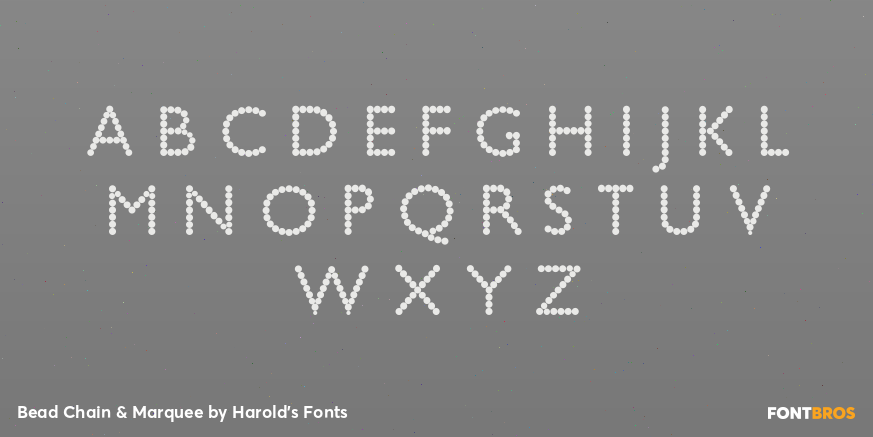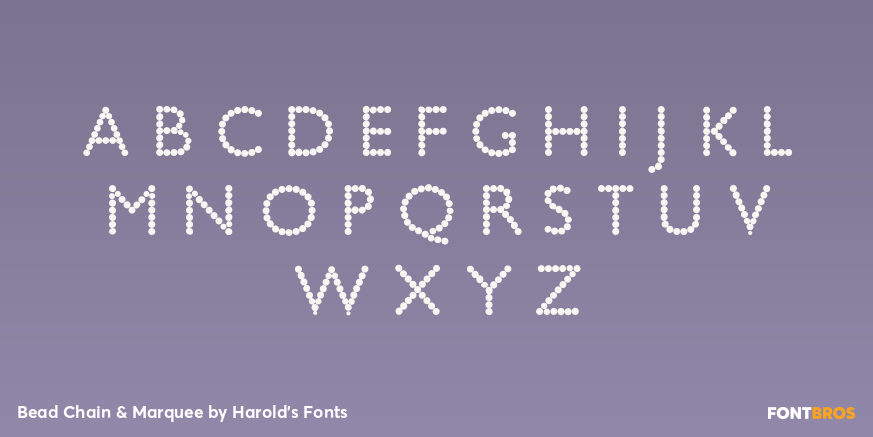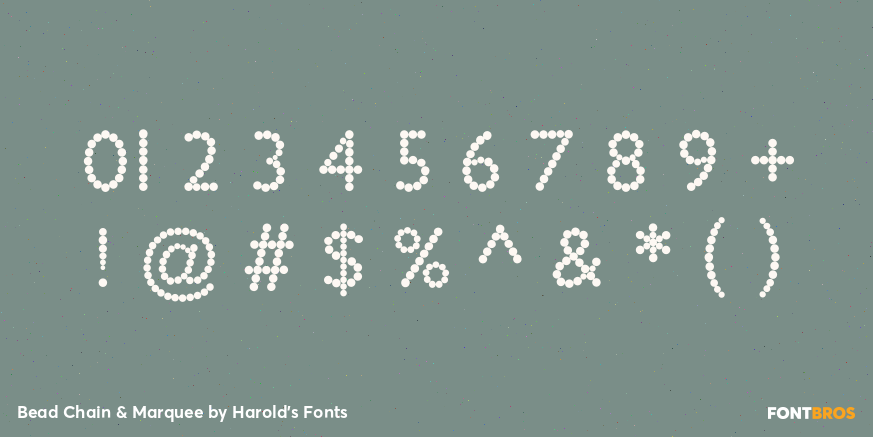
Bead Chain & Marquee
Font Family by Harold's Fonts
BEAD CHAIN and MARQUEE are a pair of fonts that are made up of dots.
BEAD CHAIN suggests a string of pearls while MARQUEE offers your name in lights. Inspired by a book jacket from the early 20th century, I've used the stately letter forms of Gill Sans as my guide, although most letters had to be reshaped to fit the beads.
Please note that each font is spaced separately for best appearance, so they do not line up when you layer them.